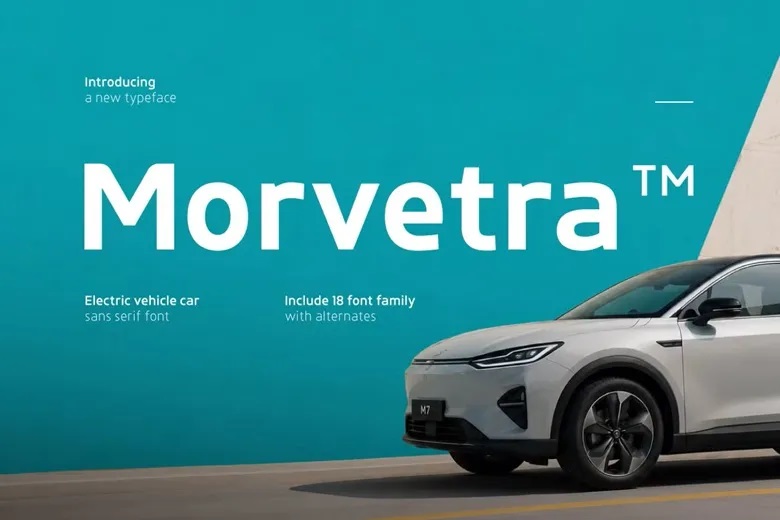
Morvetra TM Font
Morvetra TM is a modern sans-serif font inspired by electric mobility, sustainable energy, and automotive innovation. Its clean, futuristic shapes give it a sleek, high-end feel, making it a great fit for electric-vehicle brands and tech companies. The simple, bold design hints at efficiency, intelligence, and the progress shaping today’s transportation.
Morvetra TM is a strong choice for electric-vehicle branding, EV startups, charging companies, automotive websites, sustainability campaigns, mobility platforms, tech presentations, and modern corporate identities. Its balanced design is easy to read and keeps a polished, modern look in both digital and print formats.
Morvetra TM Electric Vehicle Sans Font